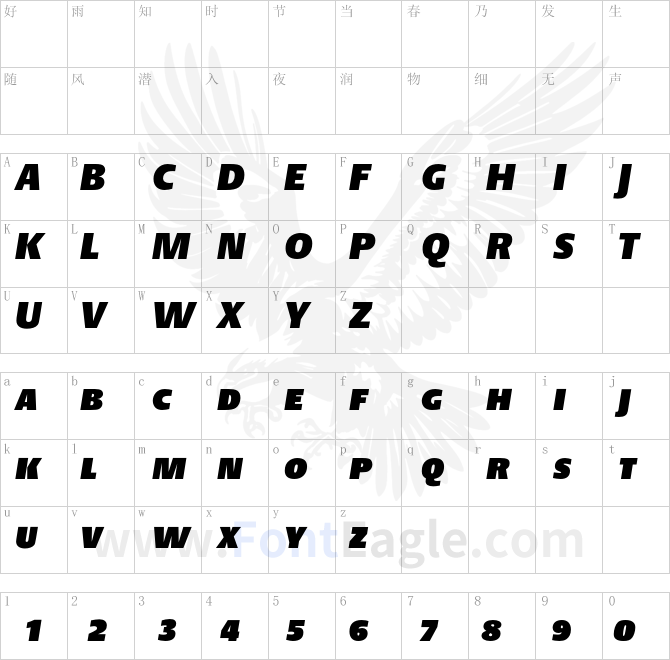
- Font name:DTLArgoTCaps UltraHeavy
- Font Subfamily ID:DTLArgoTCaps-UltraHeavyItalic:1178026227
- Font Full Name:DTLArgoTCaps-UltraHeavyItalic
- Postscript:DTLArgoTCaps-UltraHeavyItalic
- Font Copyright:Version 1.0/ Generated on 30-08-99/ 1999 by Dutch Type Library/ URW# A057837T